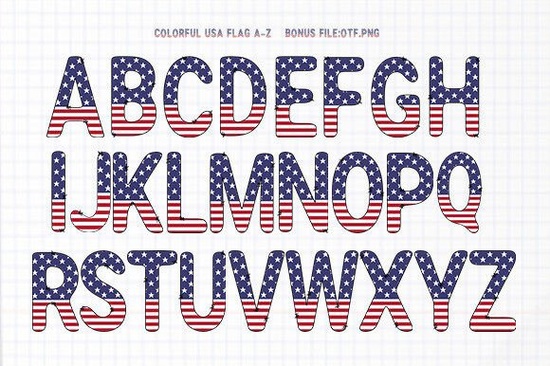
If you’re looking for a font that brings a little Americana charm to your summer projects, the Colorful Usa Flag Font is worth checking out. It’s especially handy if you design t-shirts, mugs, tote bags, or packaging with patriotic themes think 4th of July parties, backyard barbecues, or small-town parades. The duo includes both a black version (great for cutting machines) and a color version (ideal for digital design apps), so you’ve got flexibility depending on your tools.
What kinds of projects does this font suit best?
This isn’t just for flags and fireworks. Think beyond the obvious:
- Apparel – T-shirts, tank tops, or kids’ onesies with cheeky slogans like “Stars, Stripes & Snacks.”
- Home goods – Coasters, tea towels, or wooden signs for porch decor.
- Party printables – Invitations, cupcake toppers, or favor tags for Independence Day gatherings.
- Small business branding – Seasonal product labels, shop signage, or social media graphics for local vendors.
Its vintage-meets-playful style pairs well with other themed fonts too try layering it with something like the Independence Day 3D Font for depth, or the Neon Collection if you want to mix retro patriotism with a modern glow.
How does it compare to other festive fonts?
Unlike overly cartoony or stiffly formal patriotic fonts, this one strikes a balance. It’s detailed enough to feel handcrafted but clean enough to scale well on products. If you’ve used fonts like the Mermaid Rainbow Font or browsed the Safari Font collection, you’ll recognize the same attention to texture and personality. Each letter in the Colorful Usa Flag Font carries subtle brushstroke effects and embedded flag motifs not overwhelming, but enough to make your design feel intentional.
Any tips for using it effectively?
A few practical pointers:
- Less is more. Because the letters already include color and detail, avoid busy backgrounds. A solid cream, navy, or kraft paper tone lets the font shine.
- Pair it with simple sans-serifs for supporting text. Let the flag font be the hero; don’t compete with another decorative typeface.
If you’re building a summer catalog or prepping seasonal inventory, this font slots in easily alongside other holiday-themed assets. It’s not a “trendy” font chasing short-lived aesthetics its nostalgic vibe holds up year after year, making it a smart addition to your toolkit if you revisit patriotic themes annually.